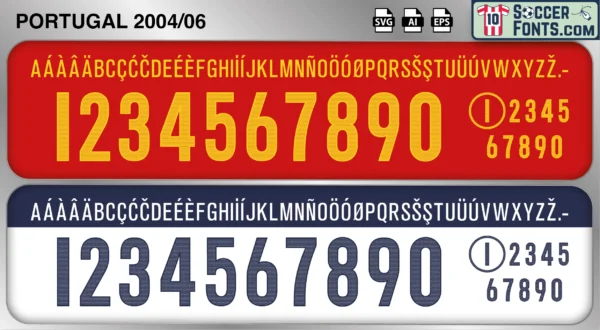
Portugal 2004-06 Font
The Portugal 2004-06 font is an editable soccer jersey lettering design in vector format inspired by the Portugal kit style used during the 2004-06 football seasons. This football font artwork is prepared for football shirt recreations, custom jersey projects, football kit mockups and sports graphic design workflows.
The 2004-06 period is inseparably linked with UEFA EURO 2004 and the rise of Portugal as a major force in international football. Hosting the tournament, Portugal reached the final after memorable victories over England and the Netherlands. The squad featured Luís Figo, Deco, Ricardo Carvalho, Maniche, Pauleta and a young Cristiano Ronaldo, who delivered breakthrough performances on the international stage. Although the final ended in disappointment, the tournament established Portugal among Europe’s elite national teams and created unforgettable moments for supporters across the country. The atmosphere surrounding Portuguese football during this era remains one of the most celebrated chapters in the nation’s sporting history.
The Portugal 2004-06 font became associated with the transition from the golden generation of Figo and Rui Costa to the emerging Ronaldo era. Following UEFA EURO 2004, Portugal continued building a highly competitive squad in preparation for the 2006 FIFA World Cup in Germany. The Portugal 2004-06 font reflects a period of national pride, football culture and growing international recognition. Portugal shirts from this era remain especially popular among football shirt collectors because of their connection with Cristiano Ronaldo’s emergence and one of the most memorable tournaments ever hosted by the country.